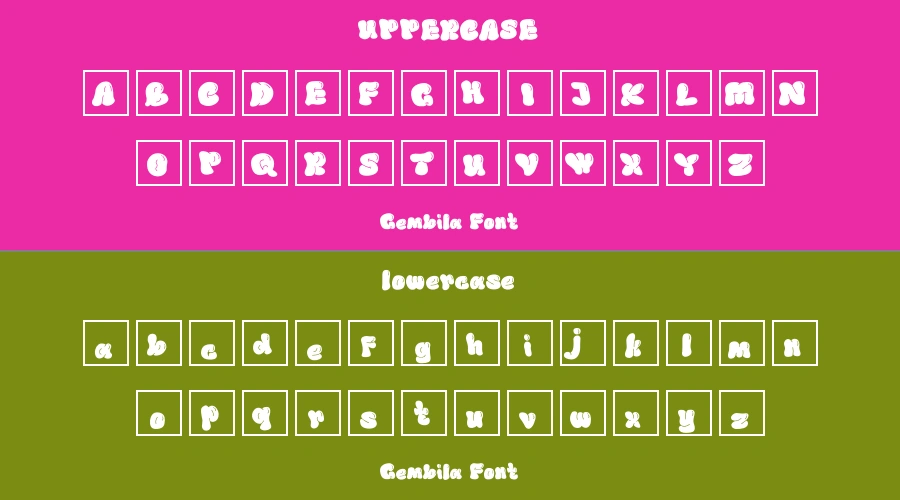
About Gembila Font
When typographic excellence matters most, Gembila Font delivers through its thoughtful blend of artistic freedom and professionalism. Specially crafted for presentation decks, it offers the flexibility and design heritage required for sophisticated design work. Every detail serves a purpose.
The character set showcases thoughtful details like circular bowls alongside functional tabular figures. This proves especially valuable in hero imagery, where math typesetting directly influences results. Particular attention was paid to tail length and cultural resonance during development.